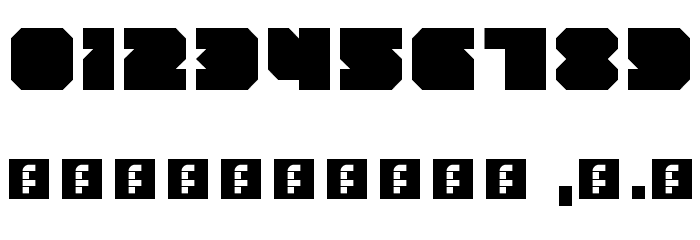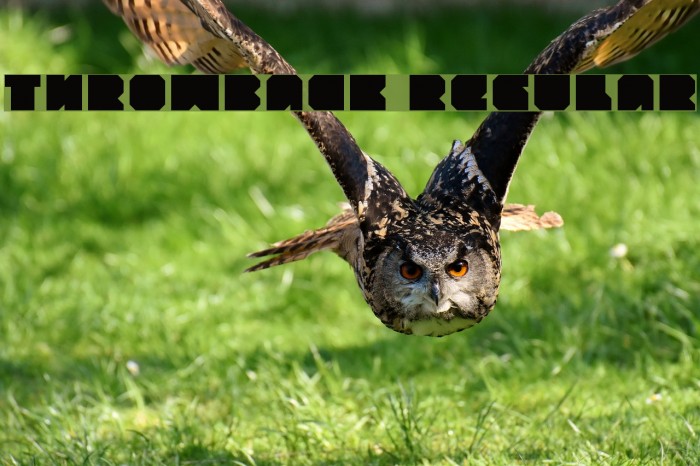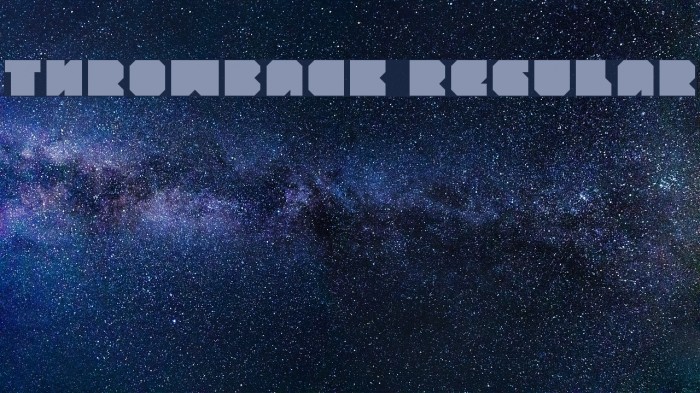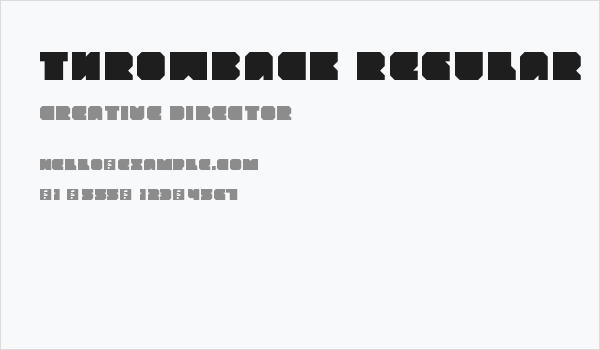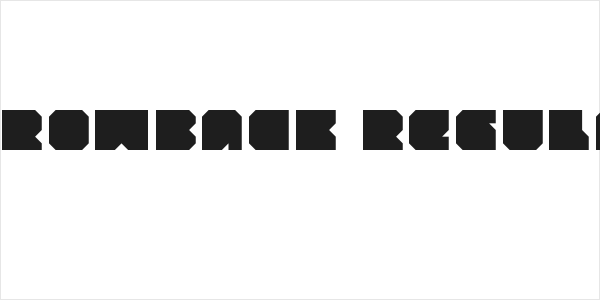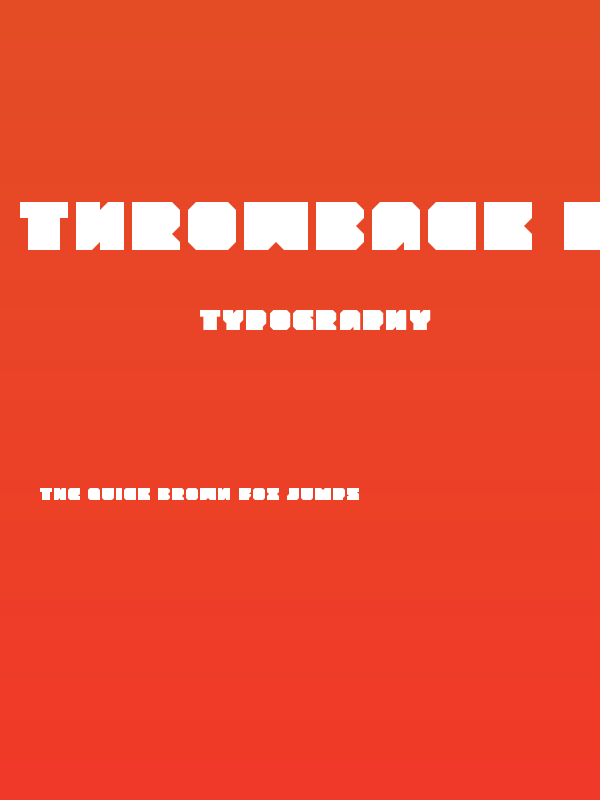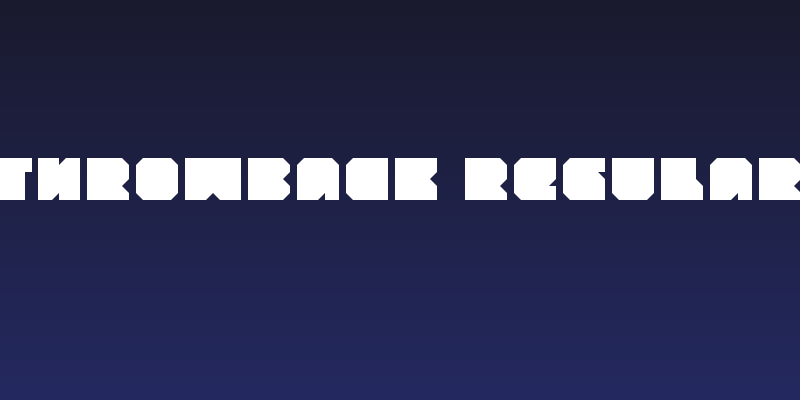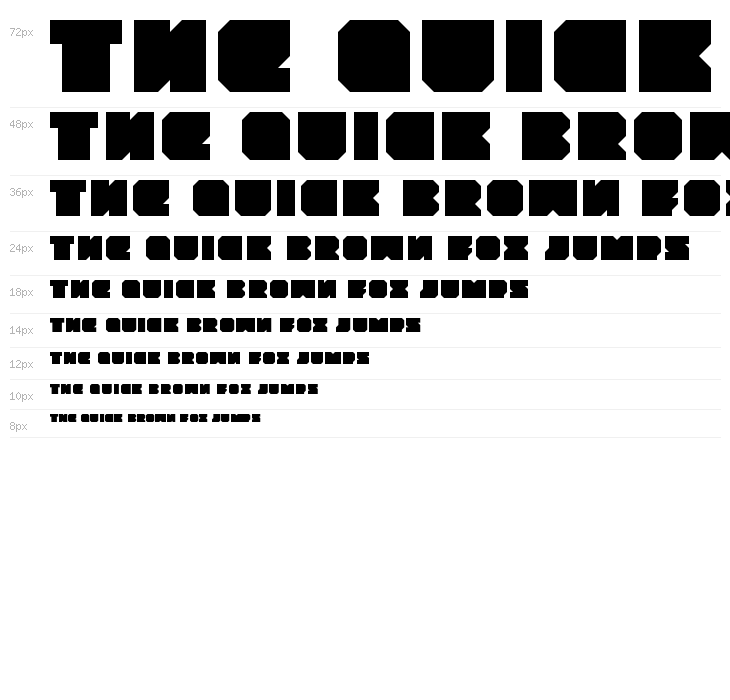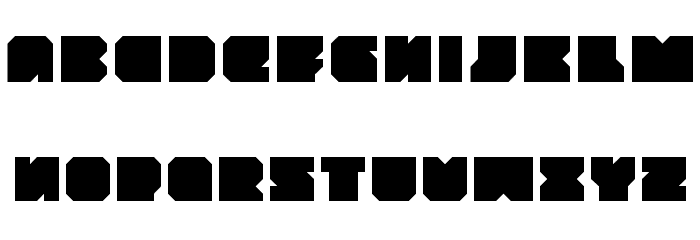
throwback Regular Font
throwback Regular Description
This font features a bold and geometric design with a distinct blocky appearance. Each character is crafted with sharp angles and straight lines, creating a sense of strength and modernity. The uppercase and lowercase letters maintain a consistent style, while the numerals and special characters follow the same robust aesthetic. The uniformity in stroke width across all characters contributes to a cohesive look, making it suitable for impactful and attention-grabbing designs. The font's unique style is ideal for projects that require a bold statement.
| Proposed Projects | Ideal for posters, logos, headlines, and branding materials that require a strong visual impact. |